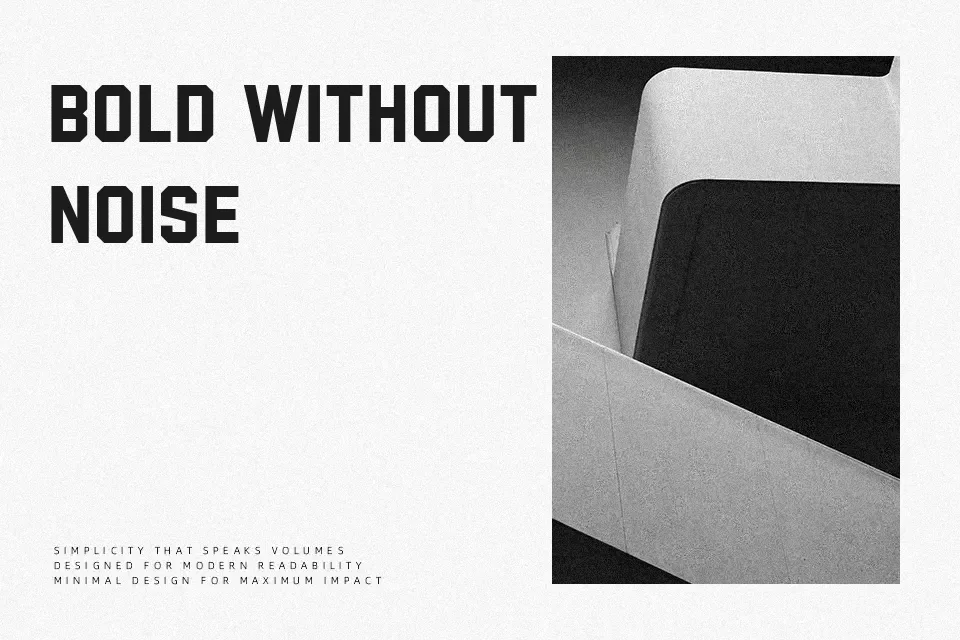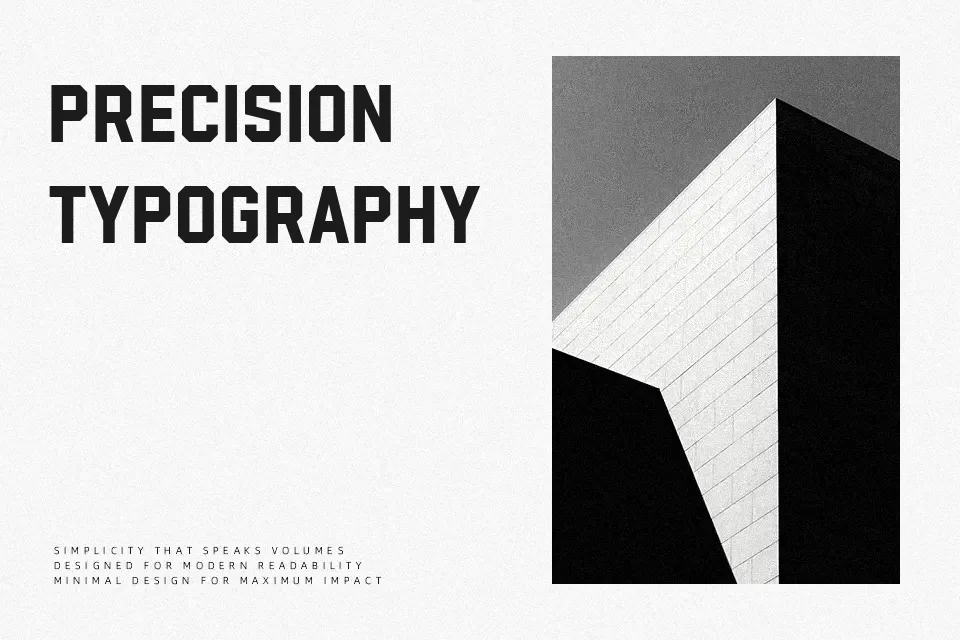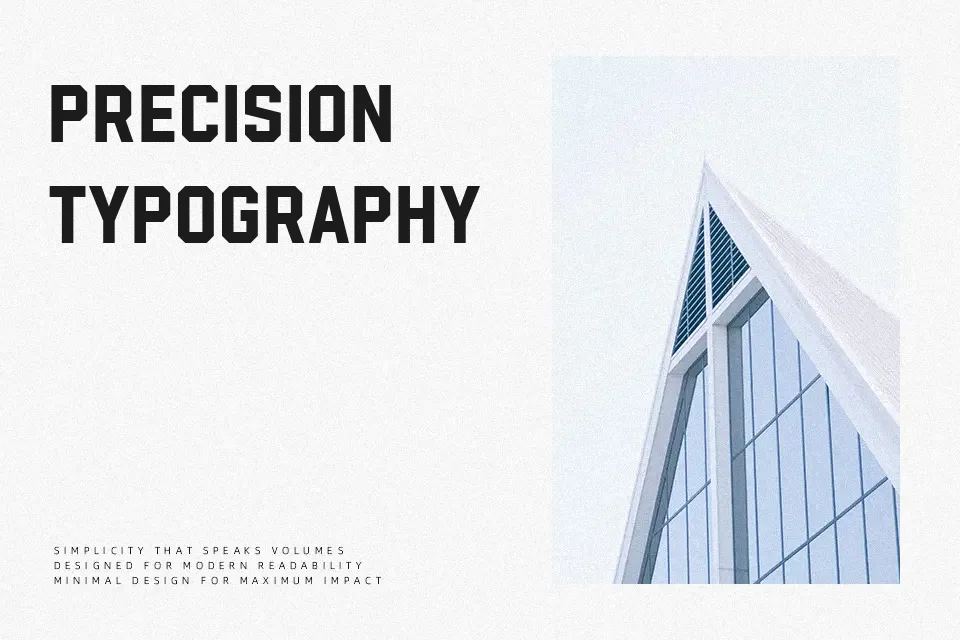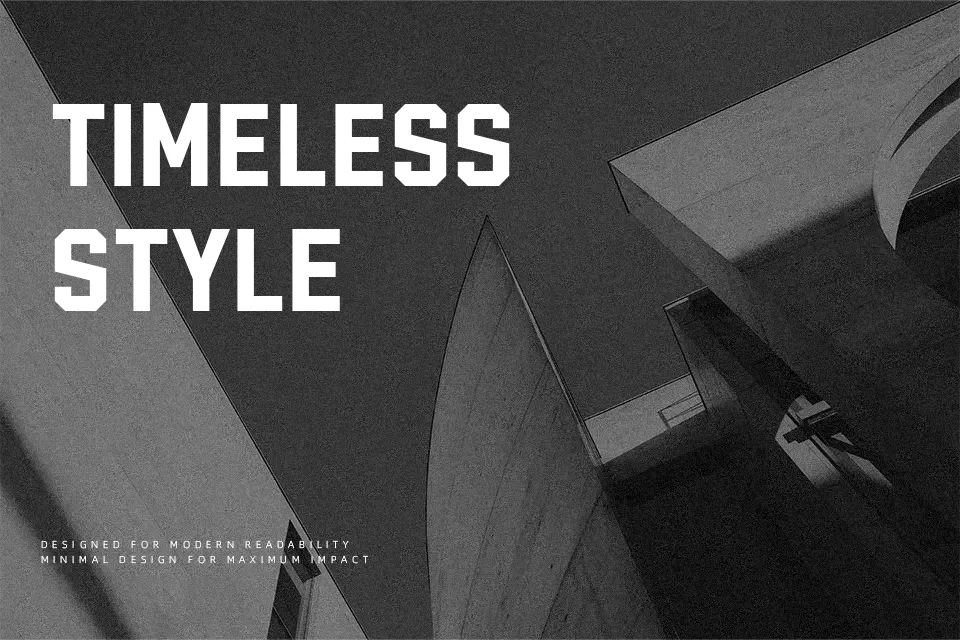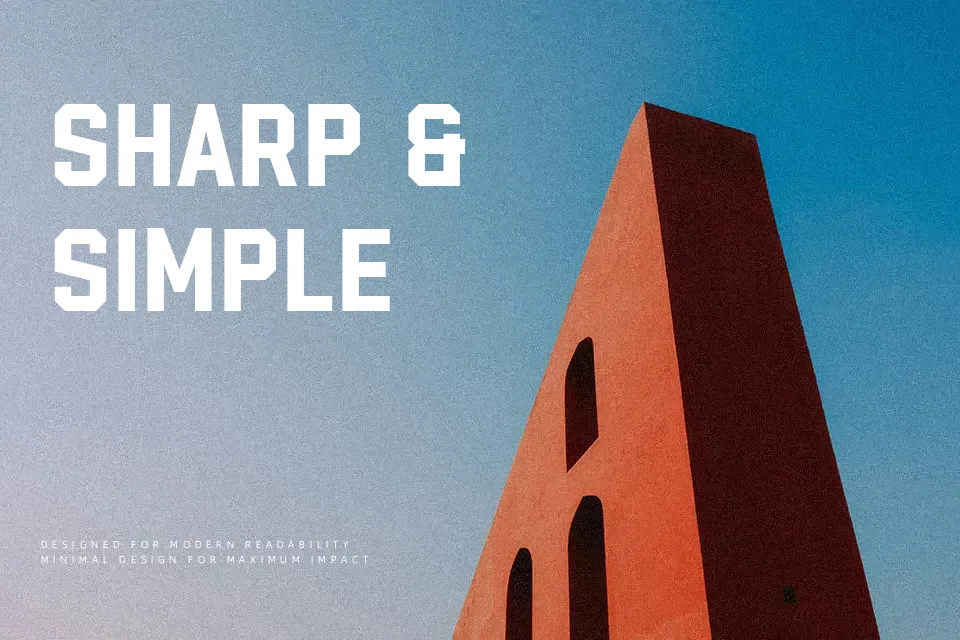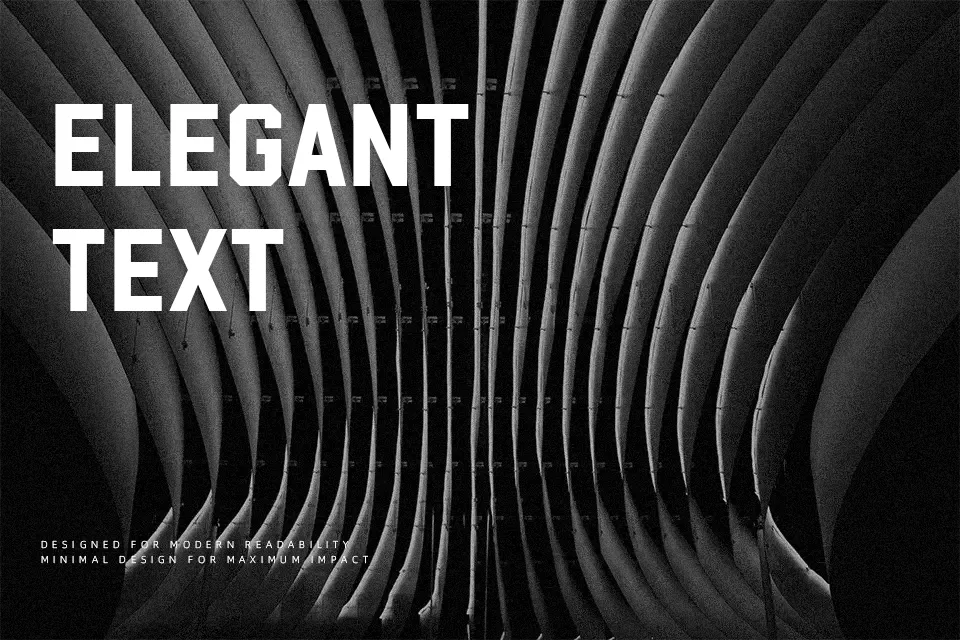
Radley Sans Font
Designed by Variatype
Bold strokes and a sturdy structural foundation define Radley Sans Font, an old-school display typeface built for impact. The letterforms feature clean, confident lines with balanced proportions that instantly draw the eye. Spacing is tightly controlled, ensuring that large-scale typography remains cohesive and highly readable in striking headlines or merchandise graphics. While its heavy weight delivers excellent visibility for promotional materials, the dense forms reduce comfort during extended reading, making it less suitable for long paragraphs. The rigid geometric influence helps maintain clarity in larger branding applications, offering a versatile tool for dynamic visual projects.
Best For: streetwear apparel graphics, bold promotional posters, merchandise design
Not Ideal For: continuous paragraph reading, dense editorial layouts, small interface labels